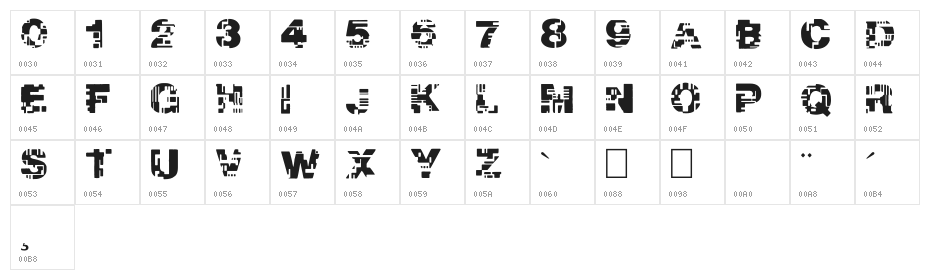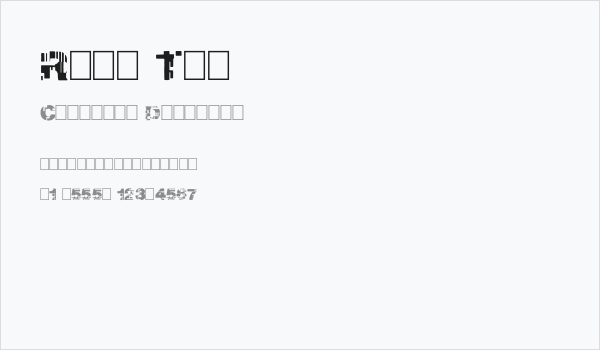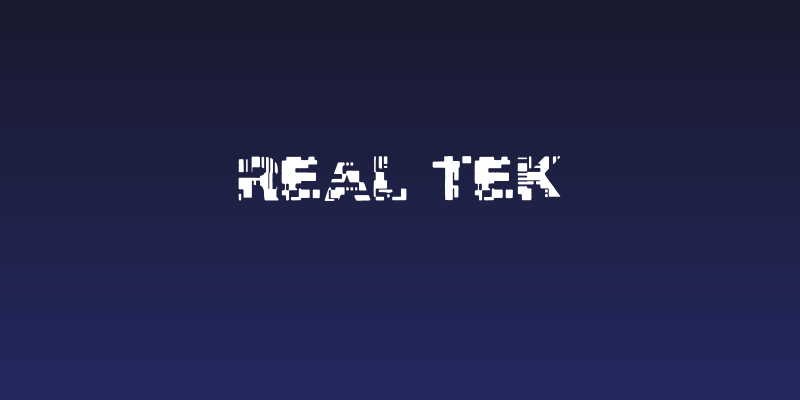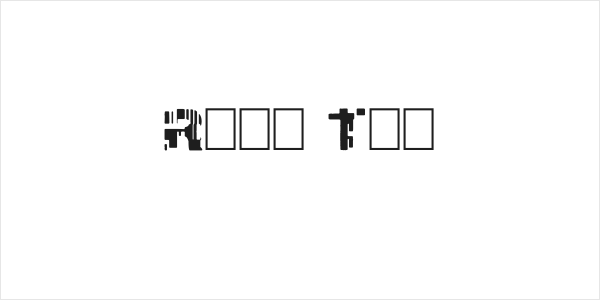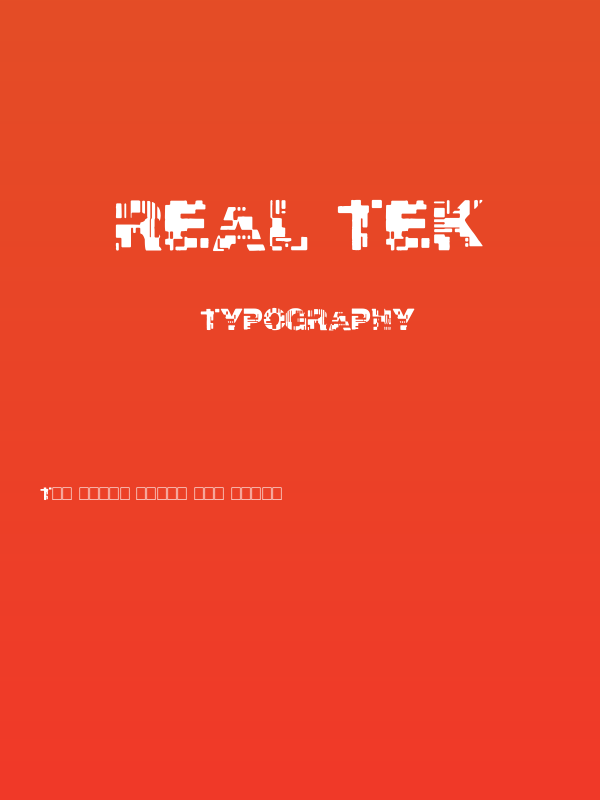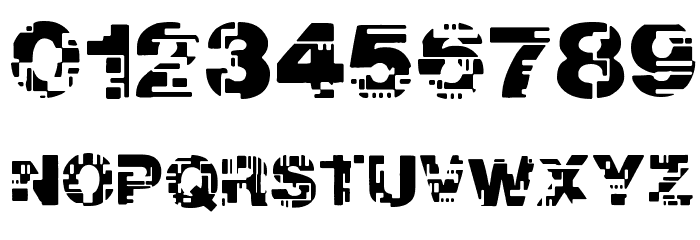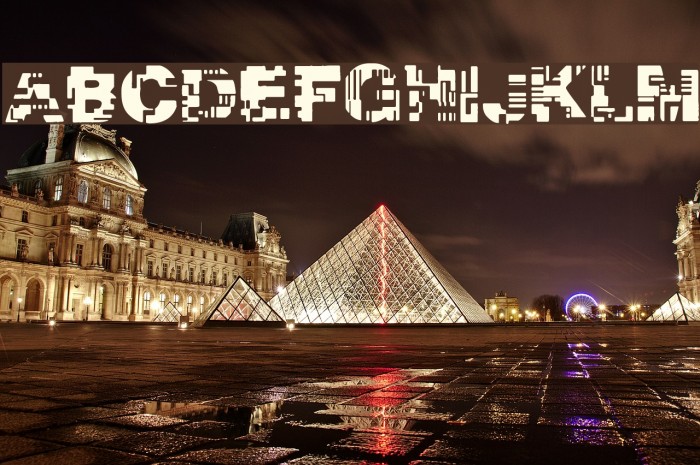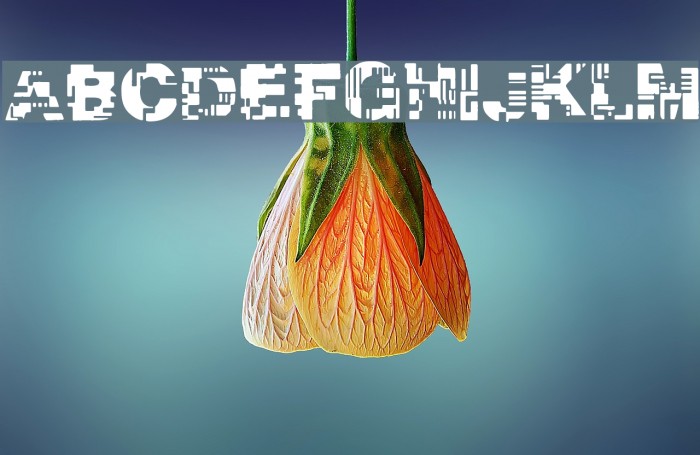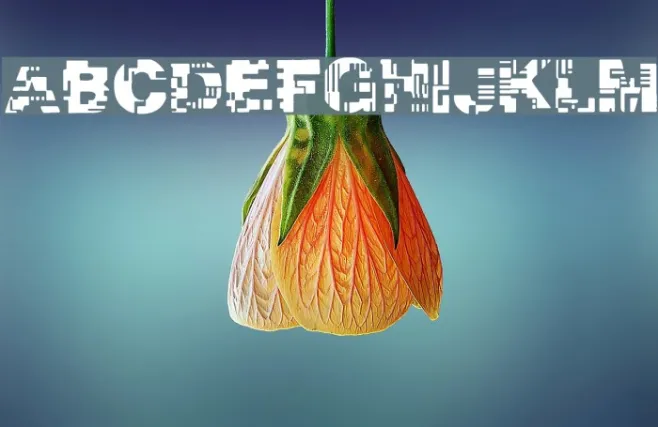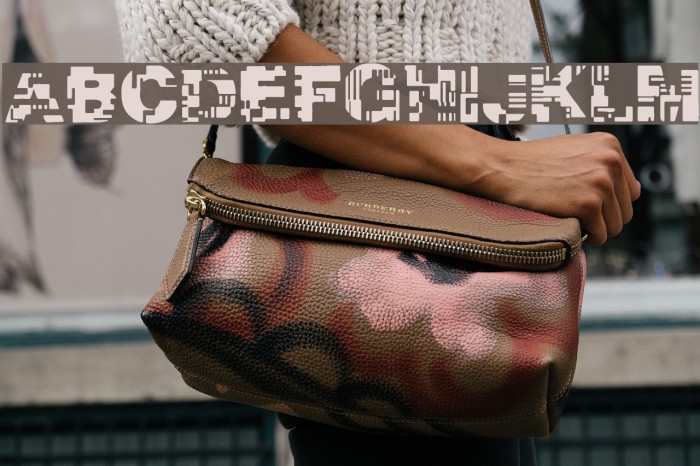
Real Tek Font
Real Tek Description
This font features a bold and striking design with a digital glitch effect, creating a sense of movement and disruption. The characters are bold and wide, with a unique pattern that resembles digital interference or static. The uppercase and lowercase letters maintain a consistent style, while the numbers and special characters follow the same aesthetic, making it ideal for projects that require a modern and edgy look. The font's distinct appearance makes it suitable for attention-grabbing headlines, posters, and digital media that aim to convey a sense of modernity and technological influence.
| Proposed Projects | Ideal for digital media, tech-themed posters, and modern branding. |